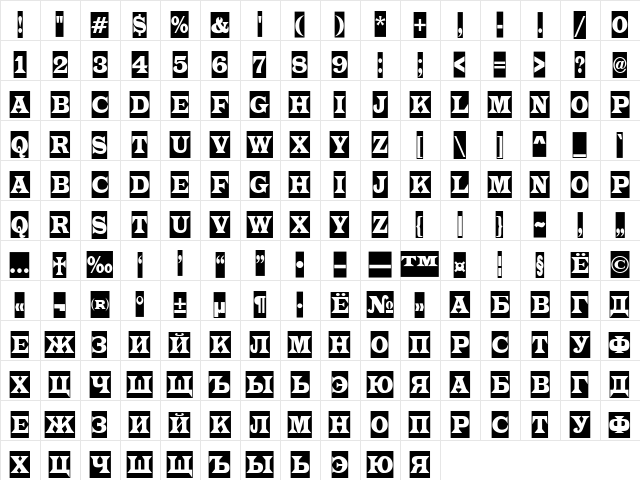
a_LatinoTitulCm Regular Font Preview
a_LatinoTitulCm Regular
a_LatinoTitulCm Regular Font Details
Design Context for a_LatinoTitulCm Typeface
a_LatinoTitulCm takes a measured approach to typography — its balanced proportions and neutral character make it a reliable workhorse for both digital and print work.